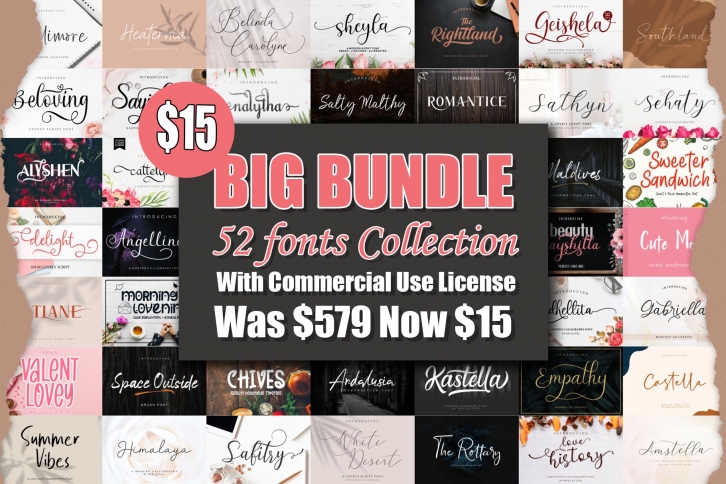
BIG BUNDLE is a beautiful font that was designed by MJB Letters. It's a great choice for designers and creatives who need such a font. It was released on February 14, 2020 and the file size is 16.27 MB. BIG BUNDLE may give a more youthful, expressive and casual look to your project. It is a very beautiful, refined, elegant, and high-quality font.